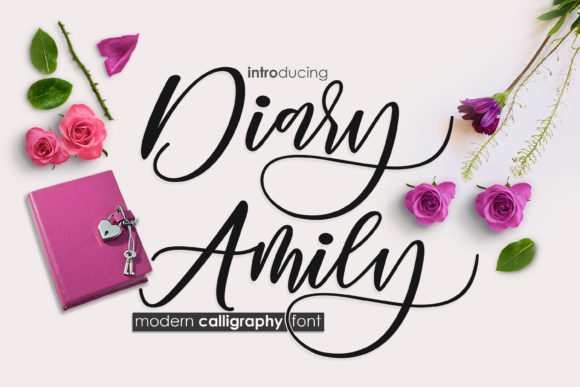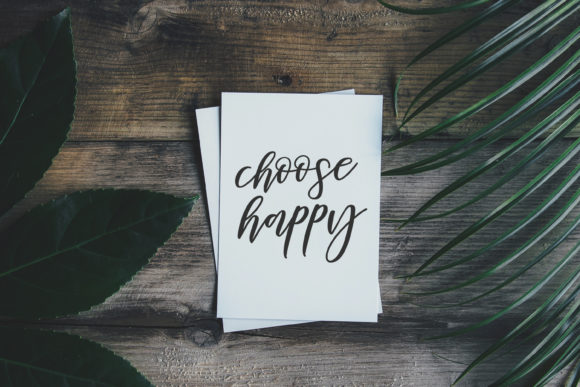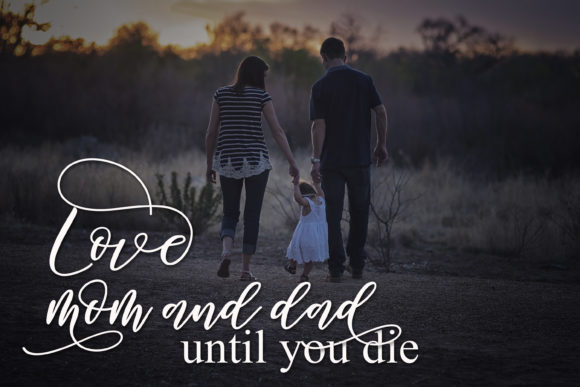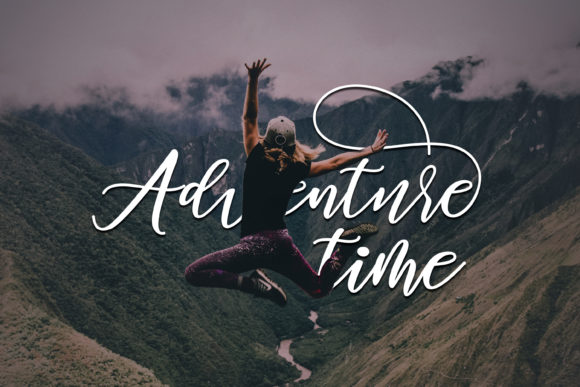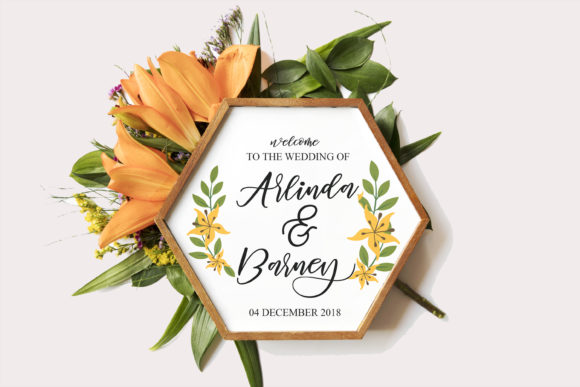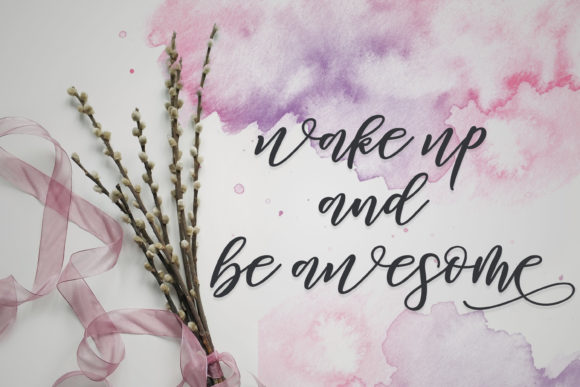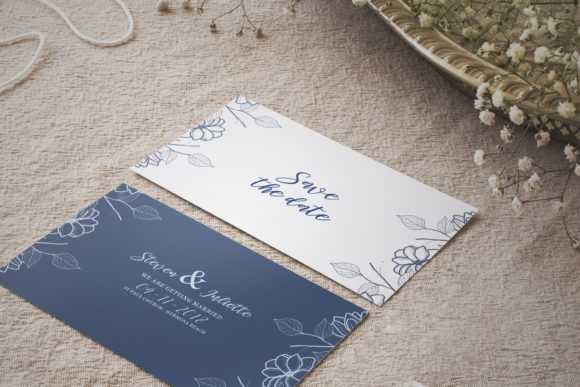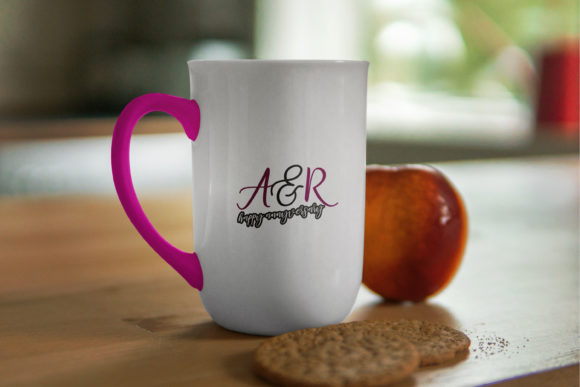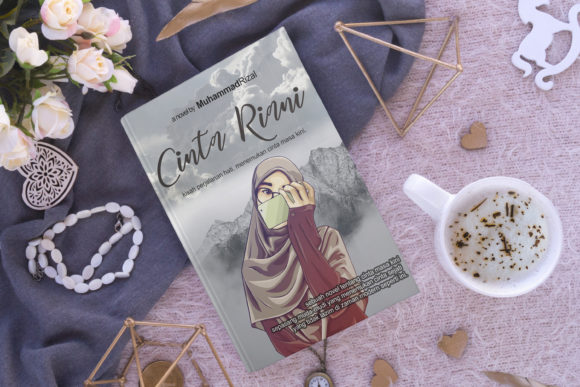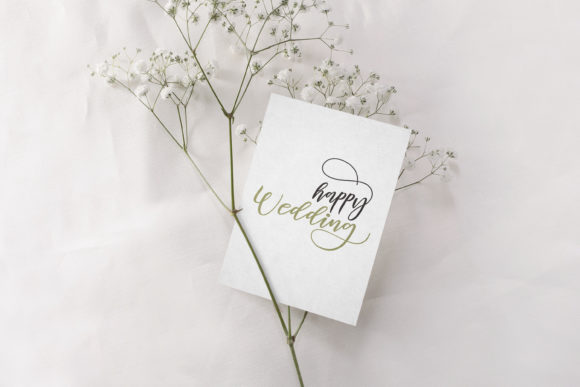
Diary Amily Font
The Diary Amily is an elegant script font. It was inspired by a woman’s diary, and whatever was passed was always written in the book.
The Diary Amily is perfect for branding, wedding invitations, magazines, mugs, business cards, quotes, posters, and every other design that needs a stylish and elegant typeface.